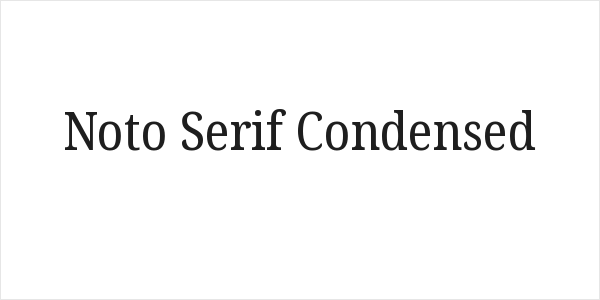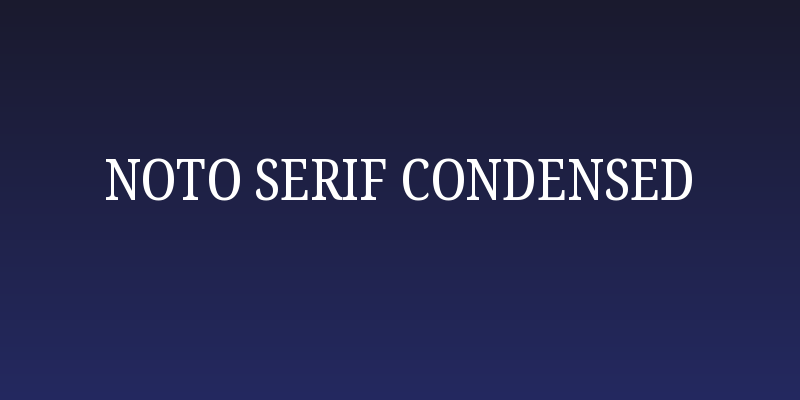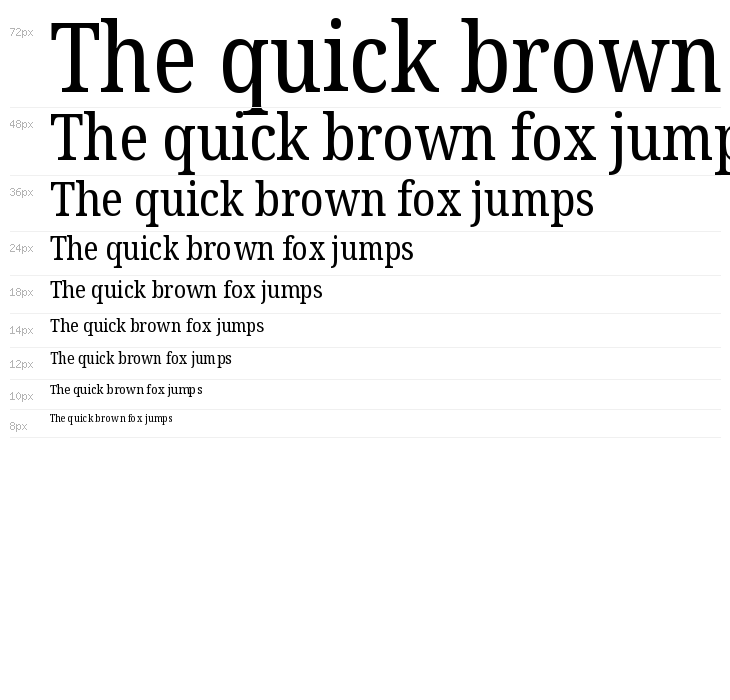
Noto Serif Condensed Font
Noto Serif Condensed Description
This typeface features a classic serif design with a condensed structure, offering a refined and elegant appearance. The letters are well-proportioned, with distinct serifs that enhance readability while maintaining a sophisticated look. The uppercase letters exhibit a strong presence, while the lowercase letters are balanced and harmonious. The numerals are clear and legible, making them suitable for various applications. Special characters are thoughtfully designed to complement the overall style, ensuring versatility in use.
| Proposed Projects | Ideal for editorial design, book covers, formal invitations, and branding projects that require a touch of sophistication. |